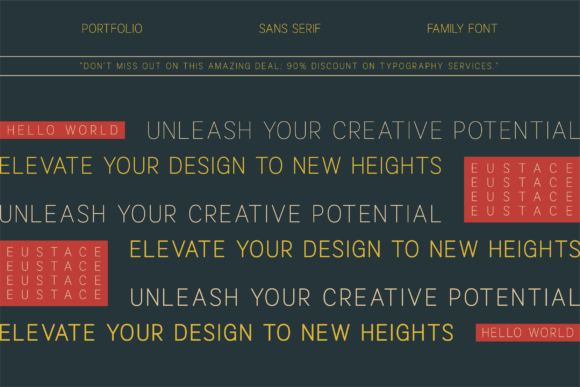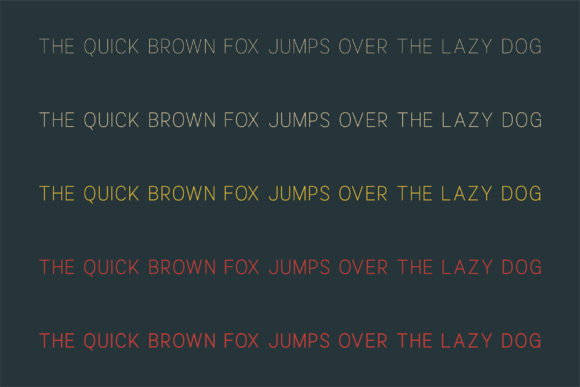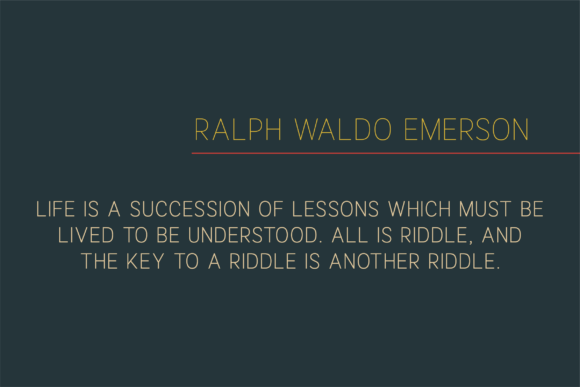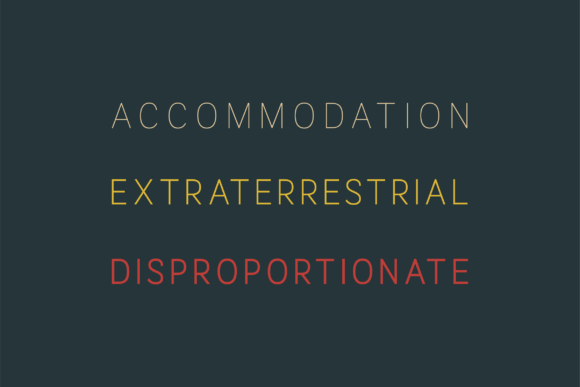
Introducing Eustace Font Family — A Masterpiece of Elegance and Minimalism
In the world of typography, a well-crafted font can elevate a design from ordinary to extraordinary. Meet Eustace Font, a sans-serif font family that embodies the perfect blend of elegance and minimalism. With its 5 distinct weights, Eustace offers unparalleled versatility, making it an ideal choice for a wide range of projects, from magazines and logos to film posters and beyond.
Precision-Crafted for Modern Design
Eustace Font is the result of meticulous attention to detail and a deep understanding of modern design principles. Each letterform has been carefully crafted to strike the perfect balance between sophistication and simplicity, allowing your creations to exude a timeless charm and contemporary luxury. Whether you’re a designer, craftsperson, or simply someone who appreciates beautiful typography, Eustace Font is sure to impress.
Unleash Your Creativity with 5 Distinct Weights
One of the standout features of Eustace Font is its range of 5 distinct weights, which cater to various design needs and preferences. From the light, airy feel of the Extra Light weight to the bold, commanding presence of the Black weight, Eustace offers the flexibility to adapt to any project or brand identity. This versatility makes it an excellent choice for:
• Magazines and editorials: Use Eustace to create visually stunning headlines, subheadings, and body copy that engage readers and elevate your publication.
• Logos and branding: Select the perfect weight to represent your brand’s personality, from sleek and modern to strong and confident.
• Film posters and advertising: Make a bold statement with Eustace’s heavier weights, or create a sense of sophistication with the lighter weights.
Elegance and Minimalism in Perfect Harmony
Eustace Font’s design is characterized by clean lines, subtle curves, and a keen sense of proportion. This harmonious balance of elegance and minimalism results in a font that is both refined and approachable. When used in your designs, Eustace Font will:
• Add a touch of sophistication and luxury
• Convey a sense of modernity and freshness
• Evoke a feeling of timelessness and endurance
Unlock a New Level of Creativity
With Eustace Font, you can transform your designs and take your creativity to new heights. This exceptional font family offers a world of possibilities, from elegant and refined to bold and attention-grabbing. By incorporating Eustace into your design workflow, you’ll be able to:
• Streamline your design process with a versatile font that adapts to various projects
• Enhance your brand’s visual identity with a unique and recognizable typography
• Explore new creative avenues and push the boundaries of typography and design
Font Name Eustace Font
Author Nan Design
In conclusion, Eustace Font is a masterpiece of elegance and minimalism that redefines modern design. With its 5 distinct weights, precision-crafted letterforms, and harmonious balance of sophistication and simplicity, Eustace offers a world of creative possibilities. Whether you’re a designer, craftsperson, or simply someone who appreciates beautiful typography, Eustace Font is an exceptional addition to your design toolkit. Unlock a new level of creativity and transform your designs with Eustace Font today.